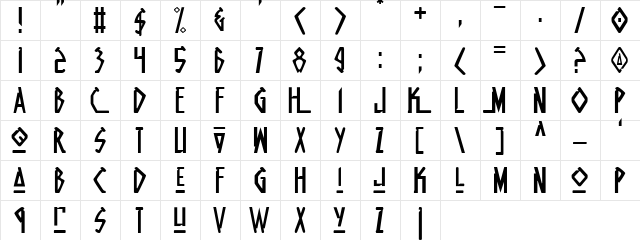
Native Alien Regular
Native Alien is a composed and adaptable typeface that performs quietly and consistently across a wide range of design contexts.